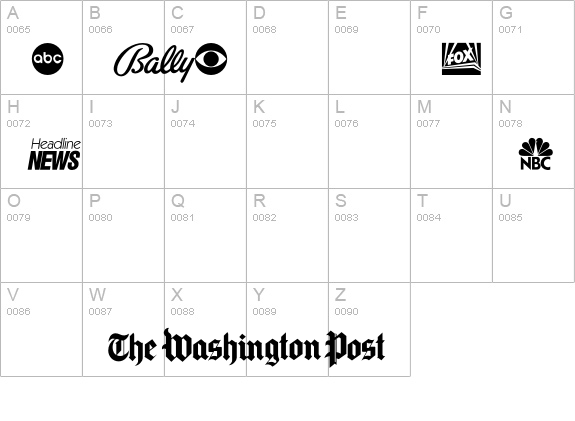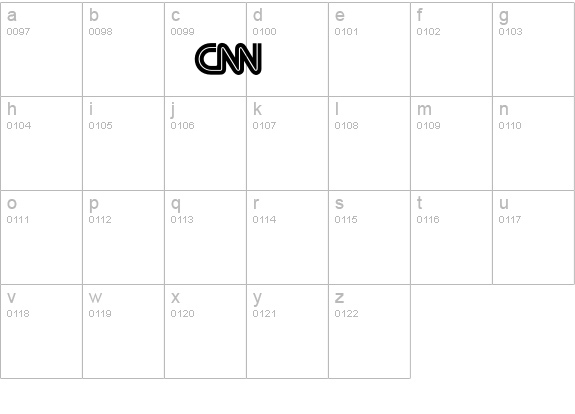
LogosEntertainment Font Details
Introducing LogosEntertainment font, a stylish and versatile typeface that exudes creativity and sophistication. With its sleek lines and modern design, LogosEntertainment font is perfect for adding a touch of elegance to your projects. Whether you're designing a logo, creating promotional materials, or crafting a website, this font will make your text stand out. The best part? LogosEntertainment font is available for free download at FontsMarket.com. Now you can access this premium font without breaking the bank. Don't miss out on the opportunity to elevate your designs with the sleek and professional look of LogosEntertainment font. Download it today and take your projects to the next level.